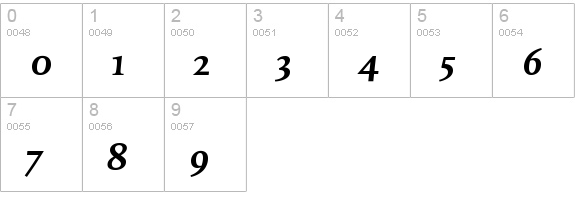
DTLAlbertinaTCaps Bold Italic is a strong, high-contrast, italic variant in the DTLAlbertinaTCaps typeface family \xE2\x80\x94 well suited to headlines, attention-grabbing titles, and strong calls-to-action.
The DTLAlbertinaTCaps Bold Italic font is a striking and elegant typeface that exudes sophistication and modernity. Its bold and italicized characters create a sense of boldness and style, making it perfect for adding a touch of flair to any design project. With its unique combination of sharp edges and flowing curves, this font is sure to make a statement. Designed with attention to detail and precision, the DTLAlbertinaTCaps Bold Italic font is ideal for headlines, logos, branding materials, and more. Its versatility allows it to be used in a variety of design applications, from print to digital. What's even better is that this exquisite font is available for free download at FontsMarket.com. So, whether you're a professional designer looking to elevate your projects or a hobbyist seeking to enhance your creations, the DTLAlbertinaTCaps Bold Italic font is the perfect choice for adding a touch of sophistication and style. Download it today and let your creativity shine!